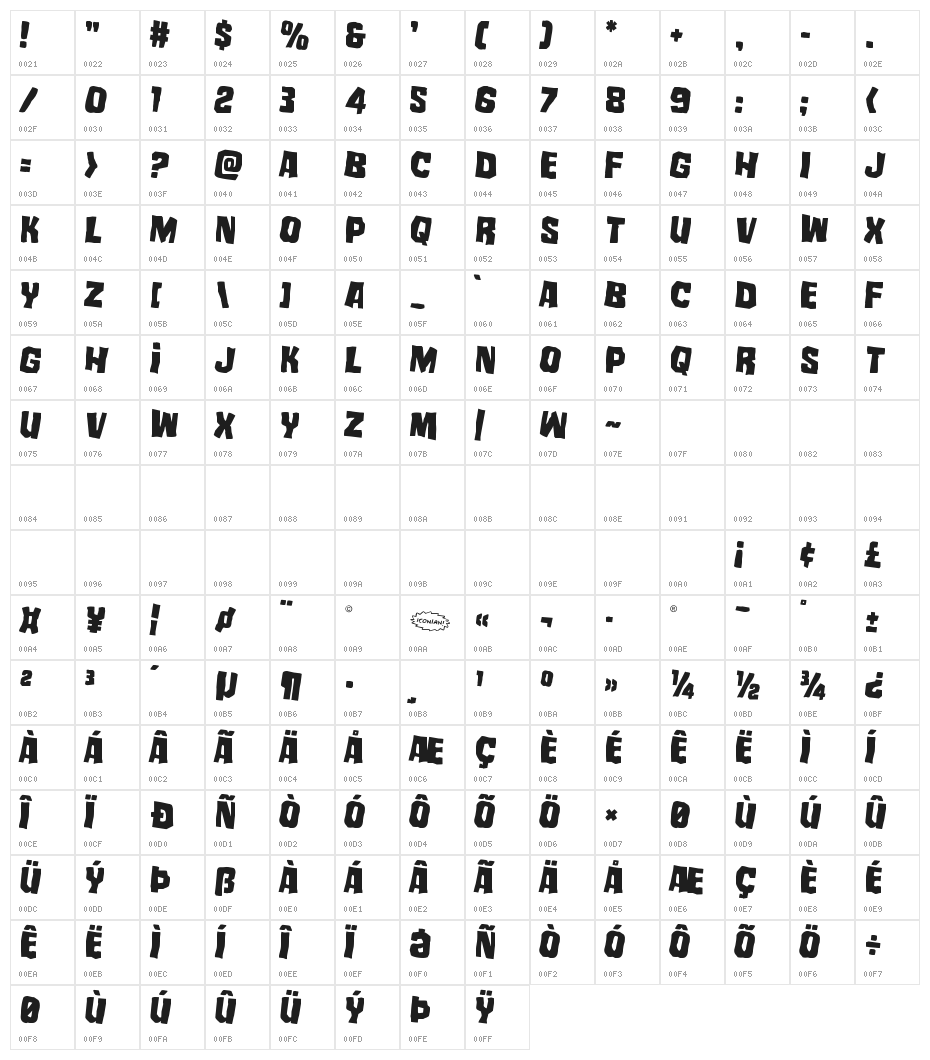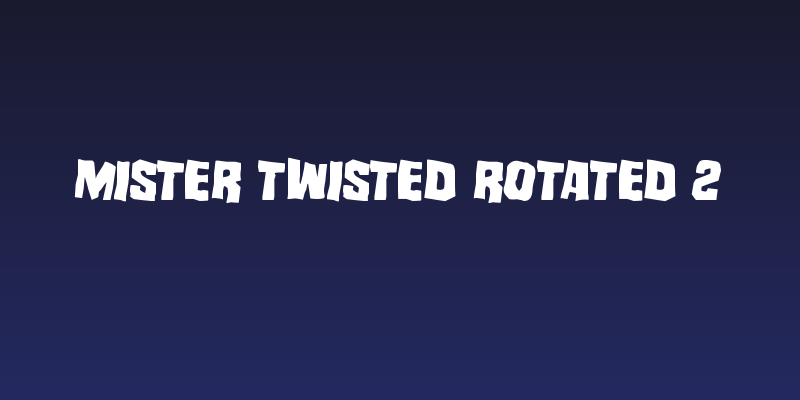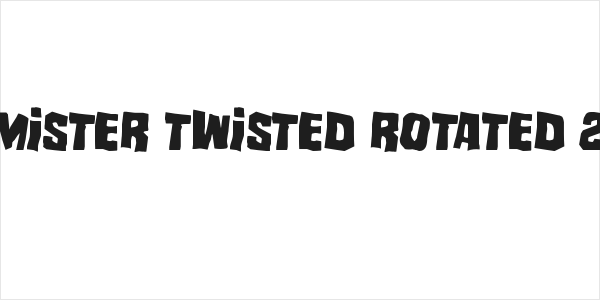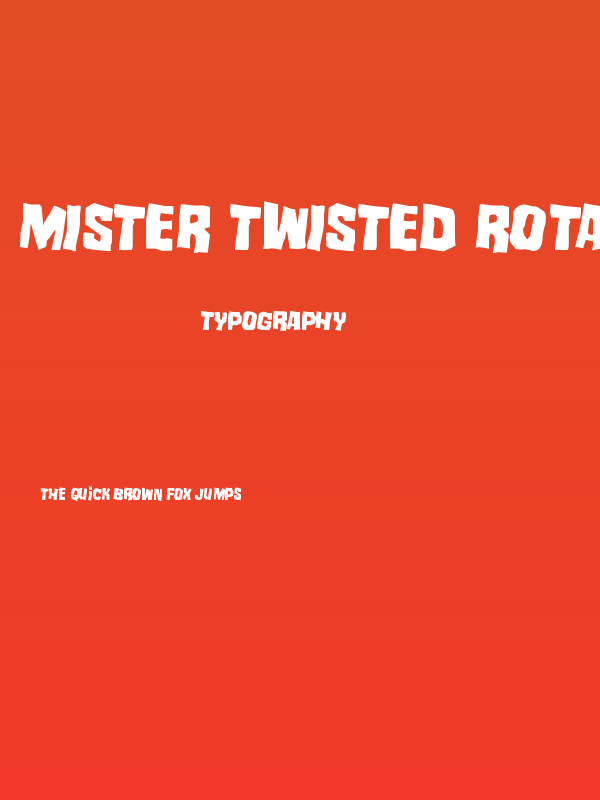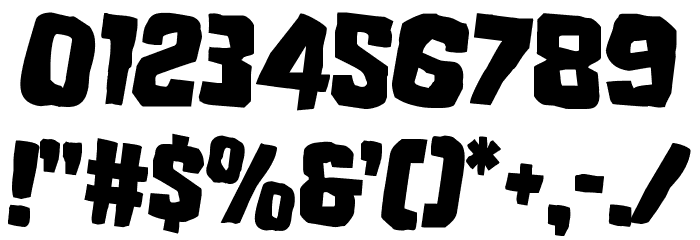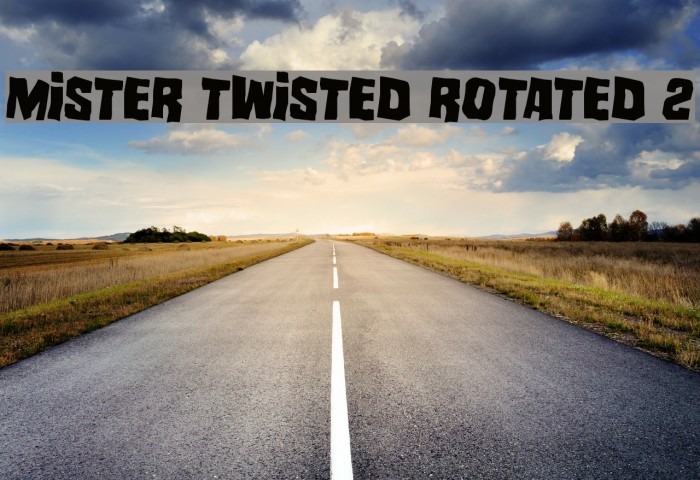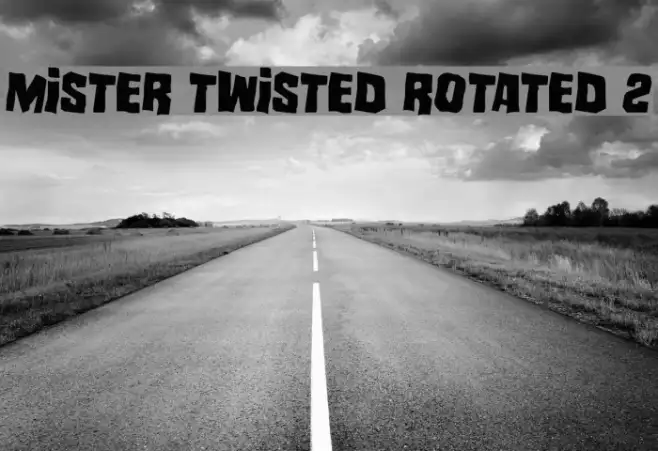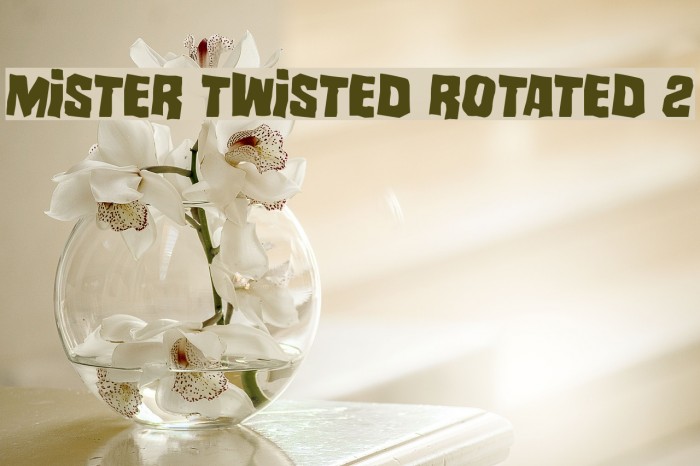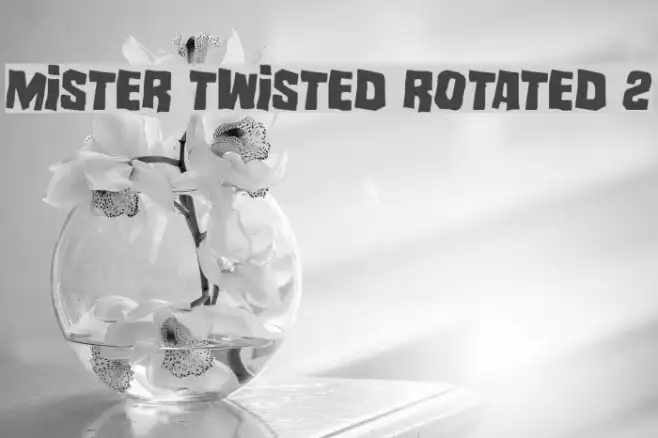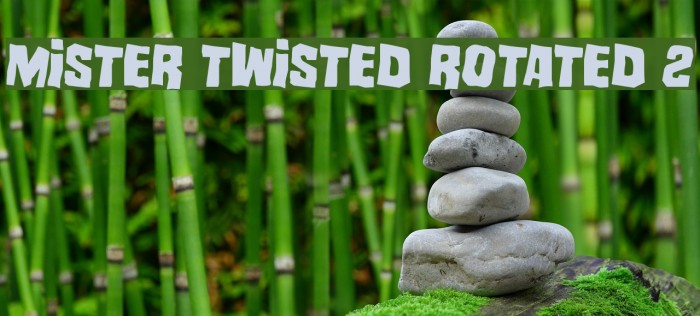
Mister Twisted Rotated 2 Font
Mister Twisted Rotated 2 Description
This font features a bold and playful design with a twisted and rotated appearance, giving it a dynamic and energetic feel. The characters are thick and robust, with irregular edges that create a sense of movement and spontaneity. The uppercase and lowercase letters maintain a consistent style, while the numbers and special characters complement the overall aesthetic. This font is ideal for projects that require a fun and eye-catching look, making it perfect for creative and unconventional designs.
| Overall Style | Playful and Energetic |
| Proposed Projects | Ideal for posters, event flyers, children's book covers, and branding for creative industries. |